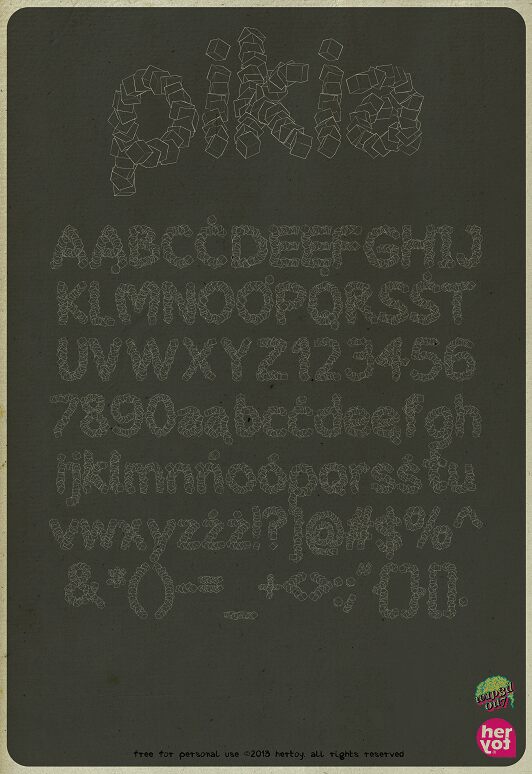
pikia
Pikia is a captivating display font that exudes a sense of dynamic energy. Designed by Hertoy, this decorative typeface boasts a distinctive, shattered appearance, lending an avant-garde, experimental aesthetic to any design.
The bold, angular letterforms create a striking visual impact, making Pikia an excellent choice for attention-grabbing headlines, impactful logos, and eye-catching branding. Its unique character can breathe life into editorial layouts, website headers, and promotional materials, infusing them with a bold, modern flair.
Pikia's versatility allows it to flourish in a wide range of design applications, from editorial to packaging, effectively capturing the viewer's attention and conveying a sense of excitement and innovation.